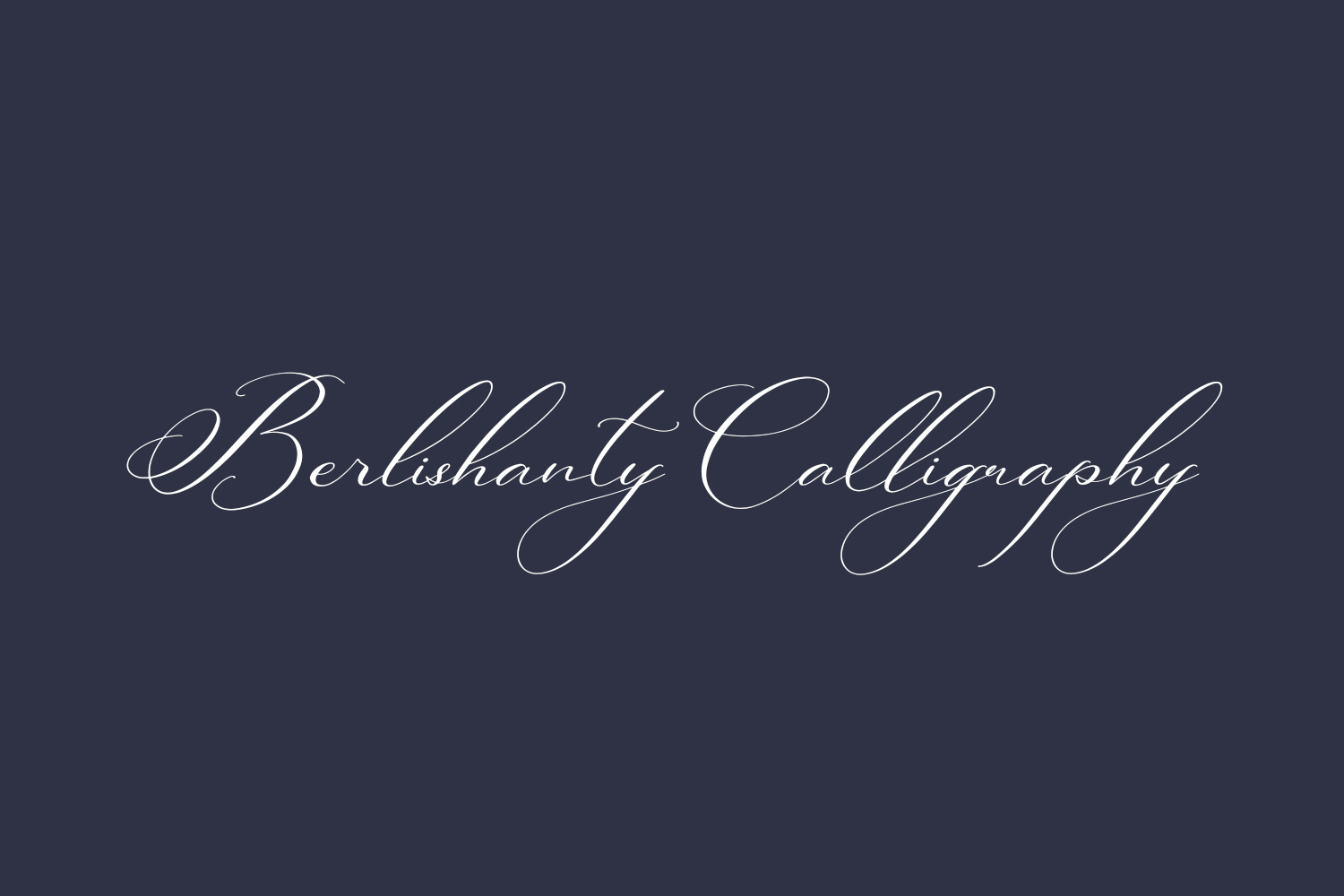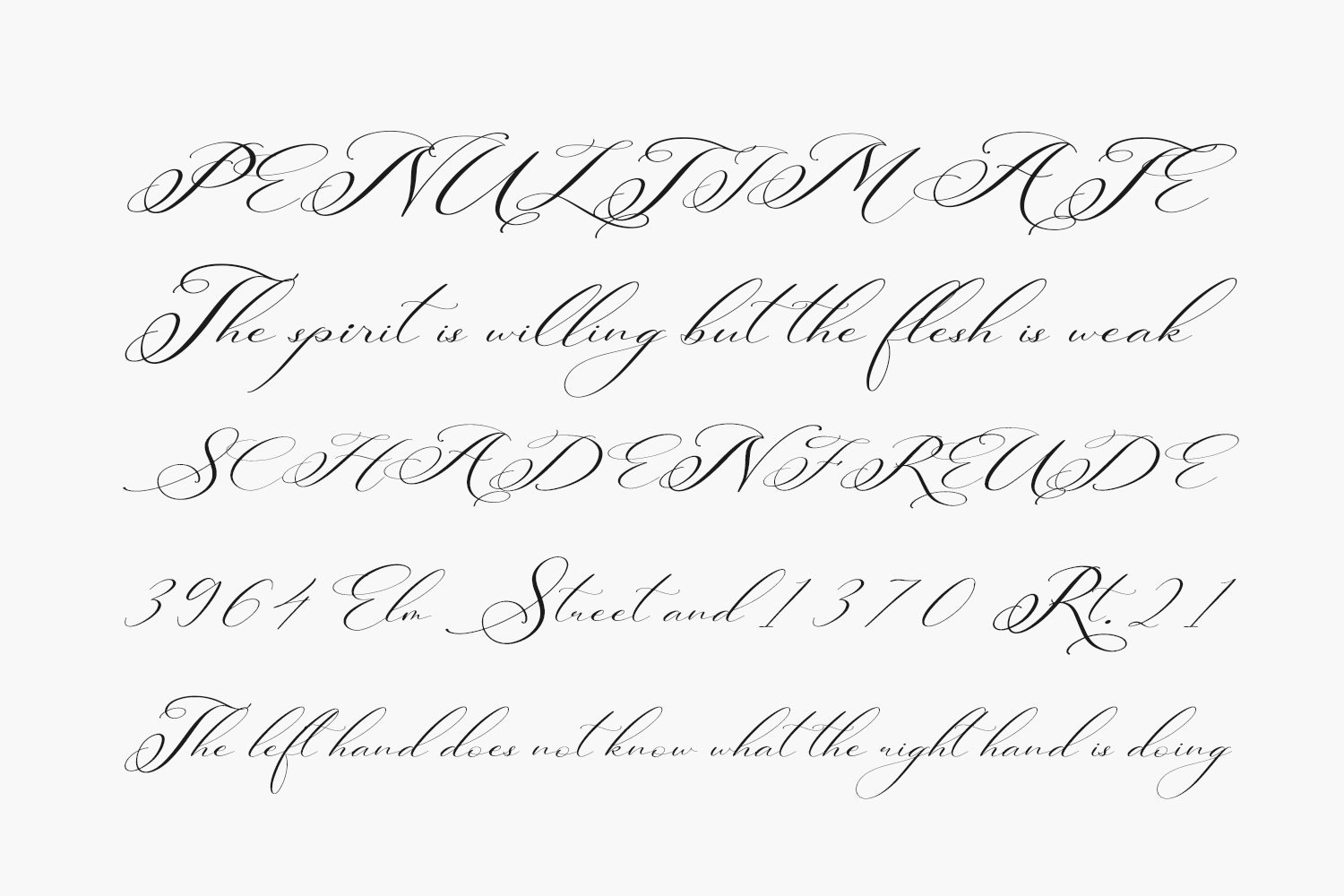
Berlishanty Calligraphy Free Font Family is a thin lettered and graceful script font. Fall for its ravishing style and use it to create gorgeous wedding invitations, beautiful stationary art, eye-catching social media posts, and much more. Berlishanty Calligraphy Free Font Family was designed by Perspectype Studio and is free for personal use only. Please purchase the full version for commercial use.